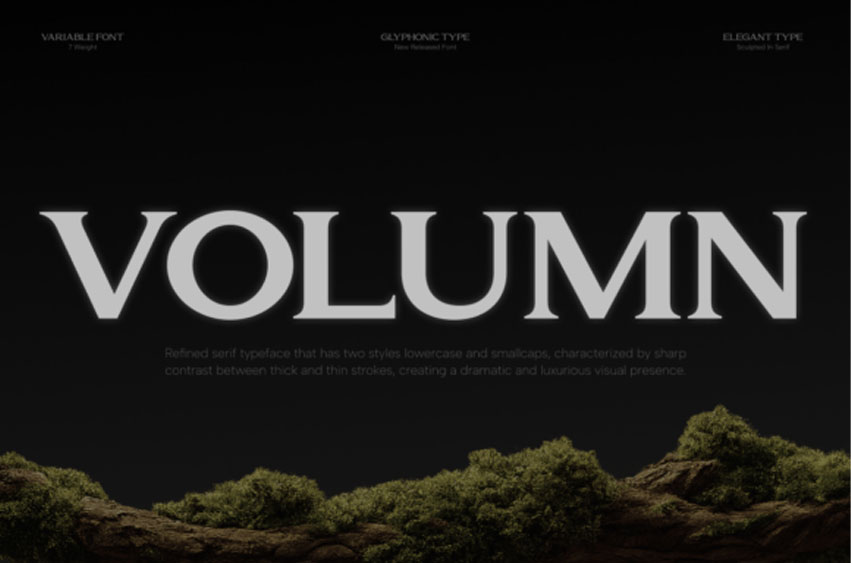
Volumn Font
Volumn Font is a refined serif typeface designed to express luxury, elegance, and dramatic visual beauty. Built with sculpted serif details, balanced proportions, and sharp contrast between thick and thin strokes, Volumn delivers a timeless typographic voice with a strong editorial presence.
With its graceful curves and sophisticated structure—as seen in its high-contrast letterforms— Volumn creates a luxurious and expressive appearance that feels both classic and modern. The elegant serif construction enhances readability while maintaining a striking visual impact across large compositions.
As a variable font with 7 weight options, Volumn offers flexibility for designers to create refined hierarchy and expressive typography across branding, editorial layouts, fashion campaigns, luxury packaging, and cinematic visual identities. The inclusion of alternate lowercase styles and smallcaps adds versatility and elevated typographic character.